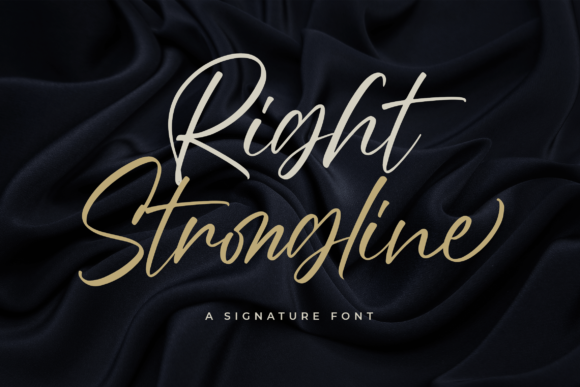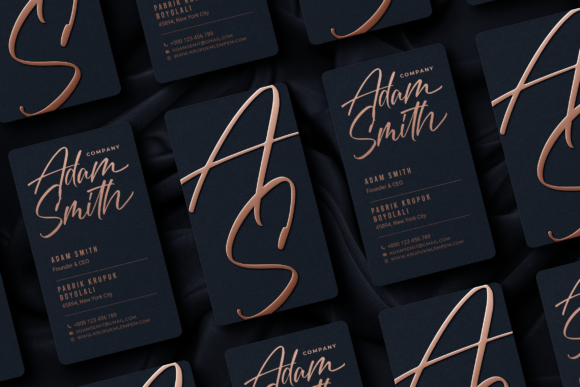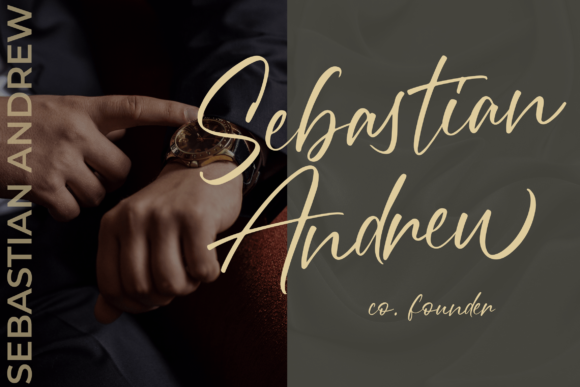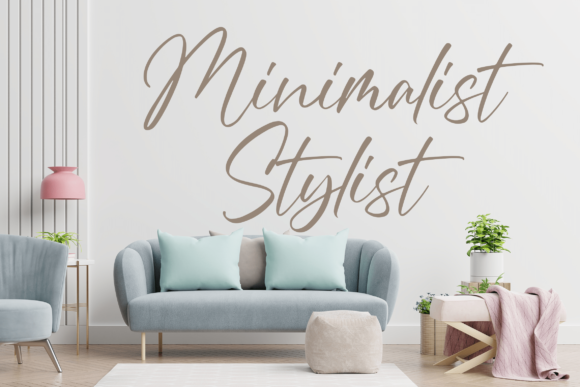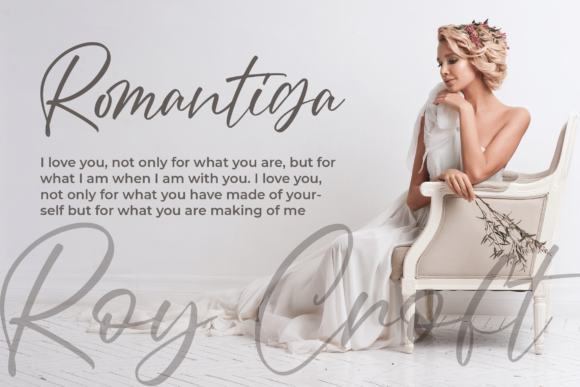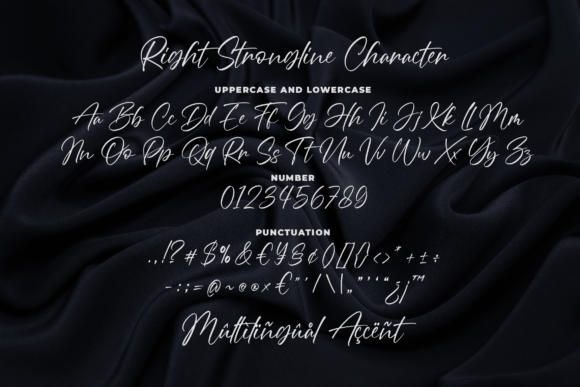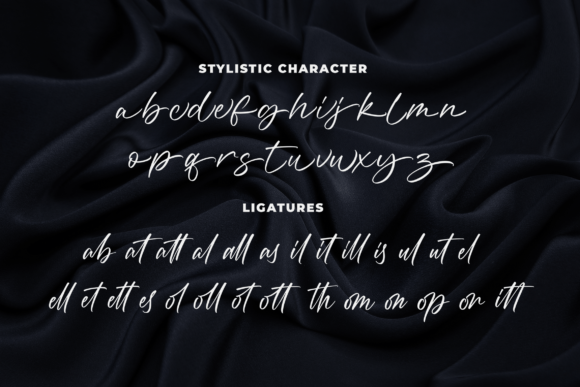
Right Strongline Font
Right Strongline is a versatile script font that is simultaneously bold and feminine in style. This font is PUA encoded which means you can access the available glyphs and swashes with ease!